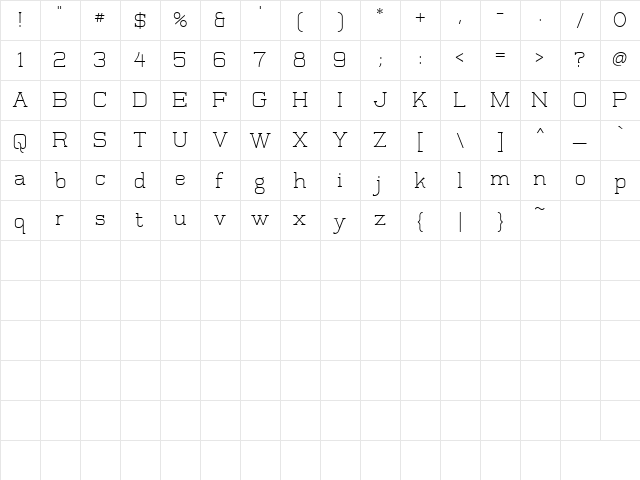
Zillahs mistake Regular Font Preview
Zillahs mistake Regular
Design Context for Zillahs mistake Typeface
Zillahs mistake is a composed and adaptable typeface that performs quietly and consistently across a wide range of design contexts.